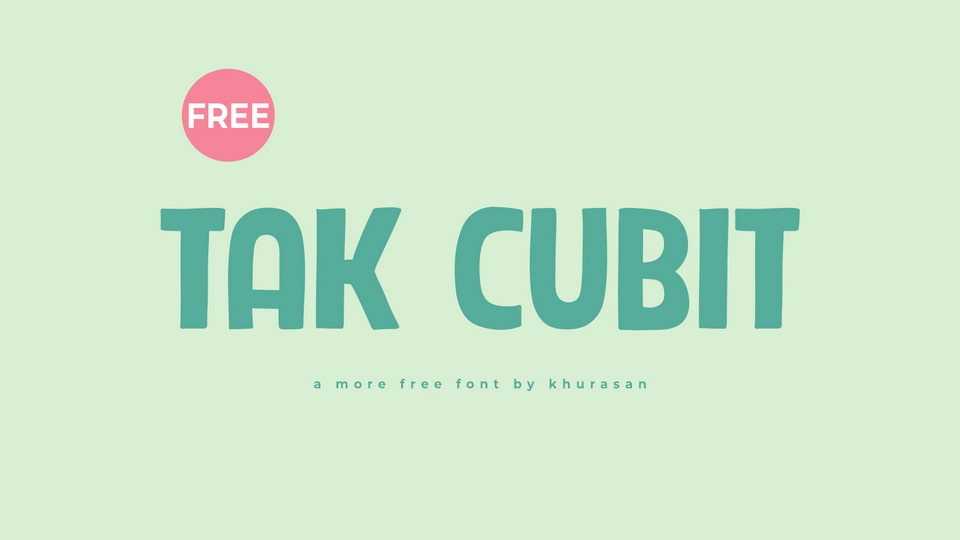
Download Tak Cubit font, a playful and quirky hand-crafted typeface that exudes creativity and charm. It features whimsical, free-spirited letterforms with delightful irregularities and imaginative details.